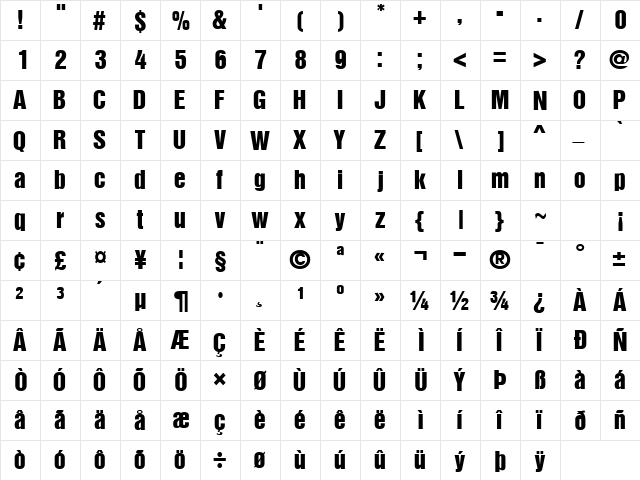
ContextInseratSSK Regular
Design Context for ContextInseratSSK Typeface
ContextInseratSSK is a composed and adaptable typeface that performs quietly and consistently across a wide range of design contexts.